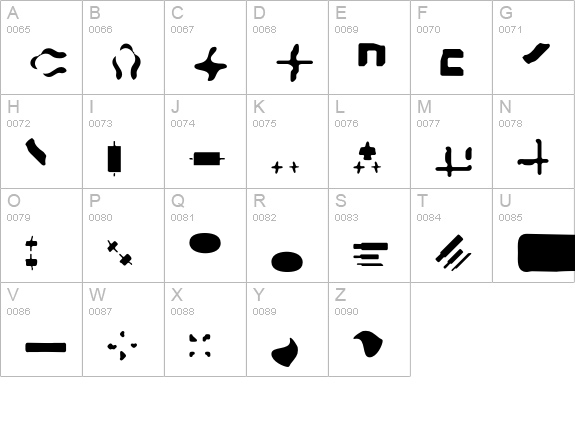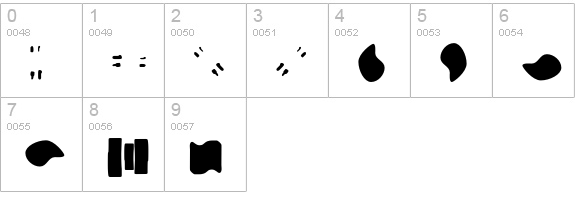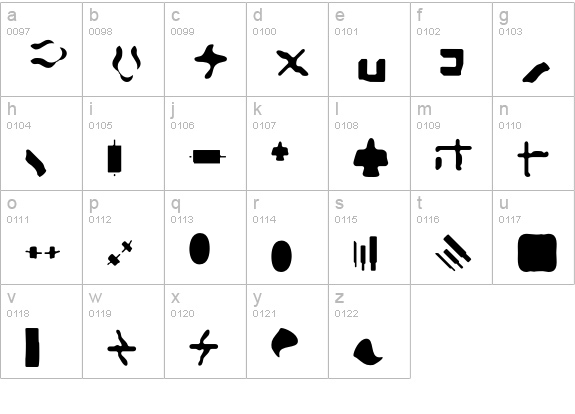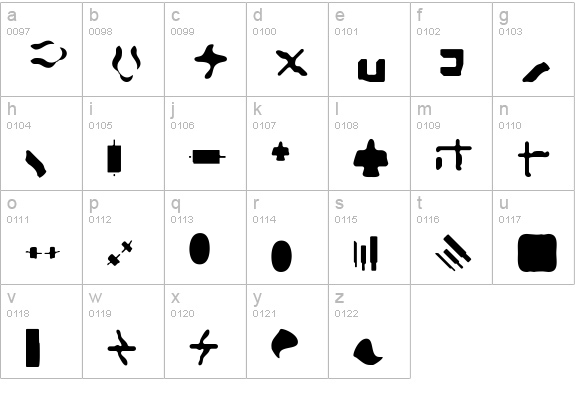
Freeform-One Font Details
Introducing Freeform-One font - a versatile and modern typeface that exudes creativity and elegance. With its unique design and sleek lines, Freeform-One is the perfect choice for a wide range of projects, from branding to editorial design. This font strikes the perfect balance between sophistication and playfulness, making it suitable for both professional and casual applications. What sets Freeform-One apart is its ability to adapt to various design styles and themes, making it a truly versatile choice for designers and creatives. Whether you're working on a sleek corporate identity or a fun and quirky poster, this font has got you covered. The best part? Freeform-One is completely free to download at FontsMarket.com, allowing you to unleash your creativity without any restrictions. Don't miss out on this opportunity to elevate your designs with the stunning Freeform-One font. Download it today and let your imagination run wild!